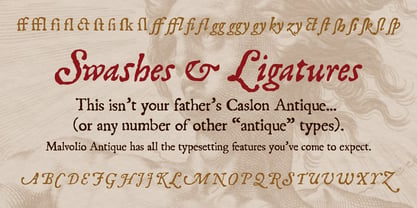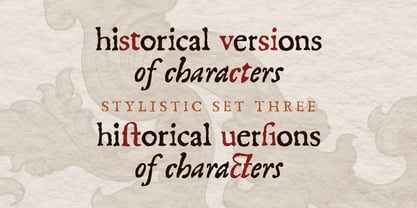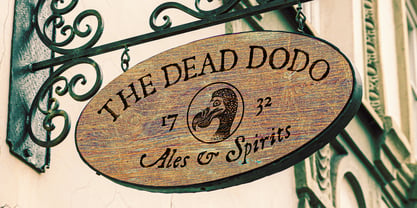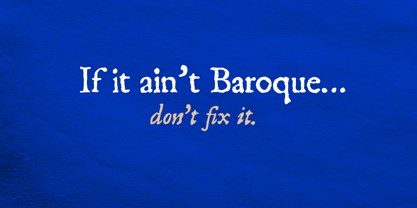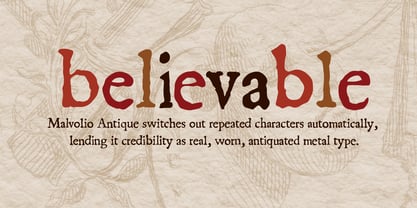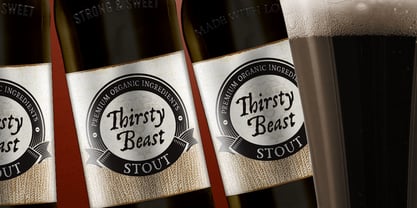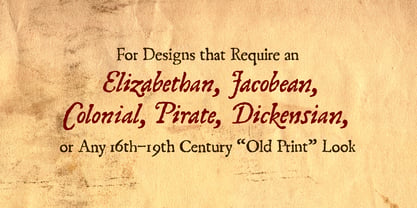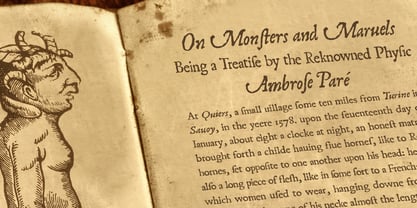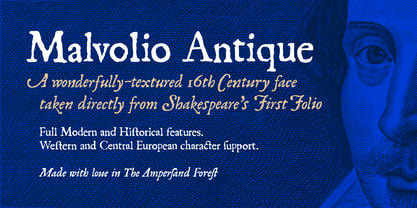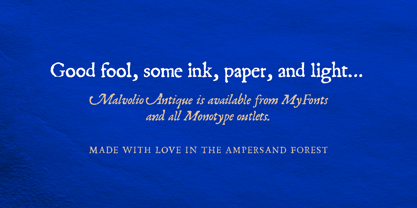
Malvolio Antique
by The Ampersand Forest
The Malvolio Antique Font Family was designed by DC Scarpelli and published by The Ampersand Forest. Malvolio Antique contains 2 styles and family package options. More about this family
For many many years, Berne Nadall's Caslon Antique has been the staple typeface for all things meant to look like old metal type of the sort used from the 16th through the 19th centuries (think Les Misérables). Malvolio Antique adds features that make it easier to achieve that look, and much more realistically. Its automatic contextual alternates switch between three complete character sets so that repeated characters have different weathering, selling that they came from different pieces of metal type. Additionally, it has historical forms (initial and medial long s and its ligatures) and contextual alternates (u for v). Malvolio Antique Italic has a full set of Swash capitals. Both typefaces are adapted directly from the body type in Shakespeare's 1623 First Folio.
The Ampersand Forest is DC Scarpelli. And probably vice versa. I am a wholly inveterate Type Nerd. I’ve been in love with letterforms my whole life, and, for 16 years, I taught type history, type design, and typography as a college professor. Type is voice, and I love giving people a voice. A variety of voices, actually, so that they can choose whichever one is best for them for a particular context. And I don’t just mean designers, either! Type’s for everyone, and every typeface has a purpose and context.For me, deliciousness—flavor—is key. Not all type has to be “good type,” whatever that means. It should be designed with thought and care and craft. It should be supremely usable. But it should aim beyond usability toward (trust me: this is the right word) yumminess.